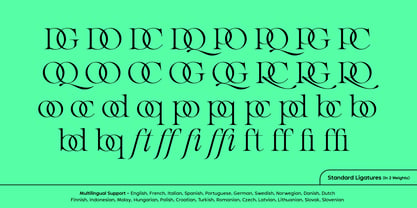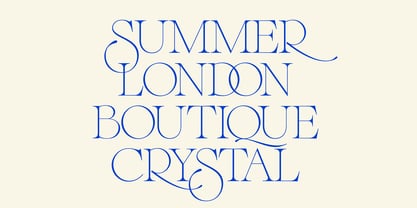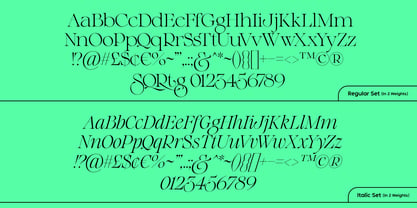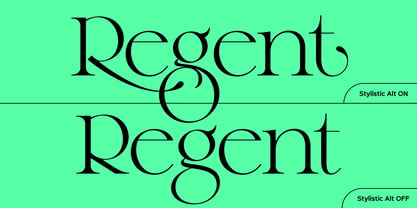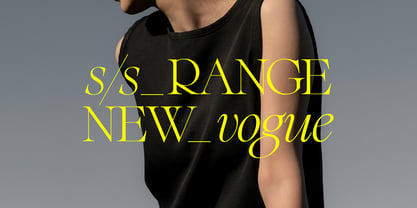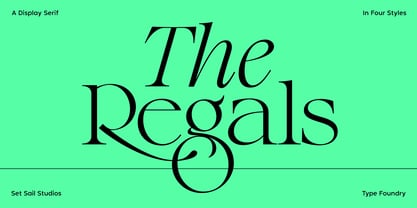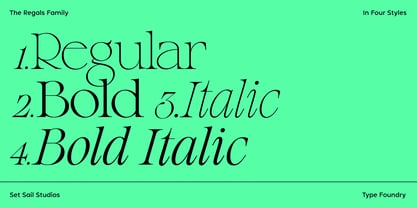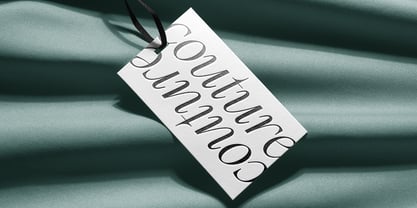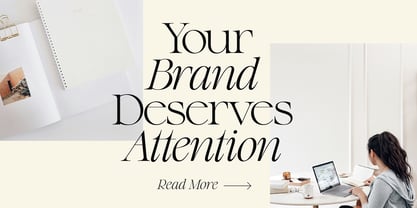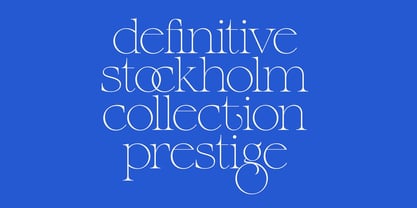
The Regals
by Set Sail Studios
The The Regals Font Family was designed by Sam Parrett and published by Set Sail Studios. The Regals contains 4 styles and family package options. More about this family
Introducing The Regals Serif Font Family - a crisp, modern spin on a classic transitional serif font. The Regals is a strong & classy display typeface which is highly versatile - offering 4 different styles (Regular, Bold. Italic, Bold italic), as well as a range of ornate alternate and overlapping ligature characters for when you're in need of a little extra custom flair. Whether it's stylish headers, elegant logos or timeless quote layouts, The Regals fonts are ready to add sophistication and presence to a range of design projects. Language Support • All fonts include language support for English, French, Italian, Spanish, Portuguese, German, Swedish, Norwegian, Danish, Dutch, Finnish, Indonesian, Malay, Hungarian, Polish, Croatian, Turkish, Romanian, Czech, Latvian, Lithuanian, Slovak, Slovenian. Accessing Ligatures and Alternates • Ligatures are available by turning on 'Standard Ligatures'. Ligatures will automatically generate when available (see images for full list of 36 ligatures). Alternate characters are available by turning on Stylistic 'Alternates'. characters S, Q, R, g, t will switch to the alternate letterform when using the Regular or Bold styles. Ligatures and Alternates are also available via the Glyphs panel in most software. The font is also PUA encoded, meaning all letters can be pasted from Font Book (mac) or Character Map (windows) into non-compatible software.
Designers: Sam Parrett
Foundry: Set Sail Studios